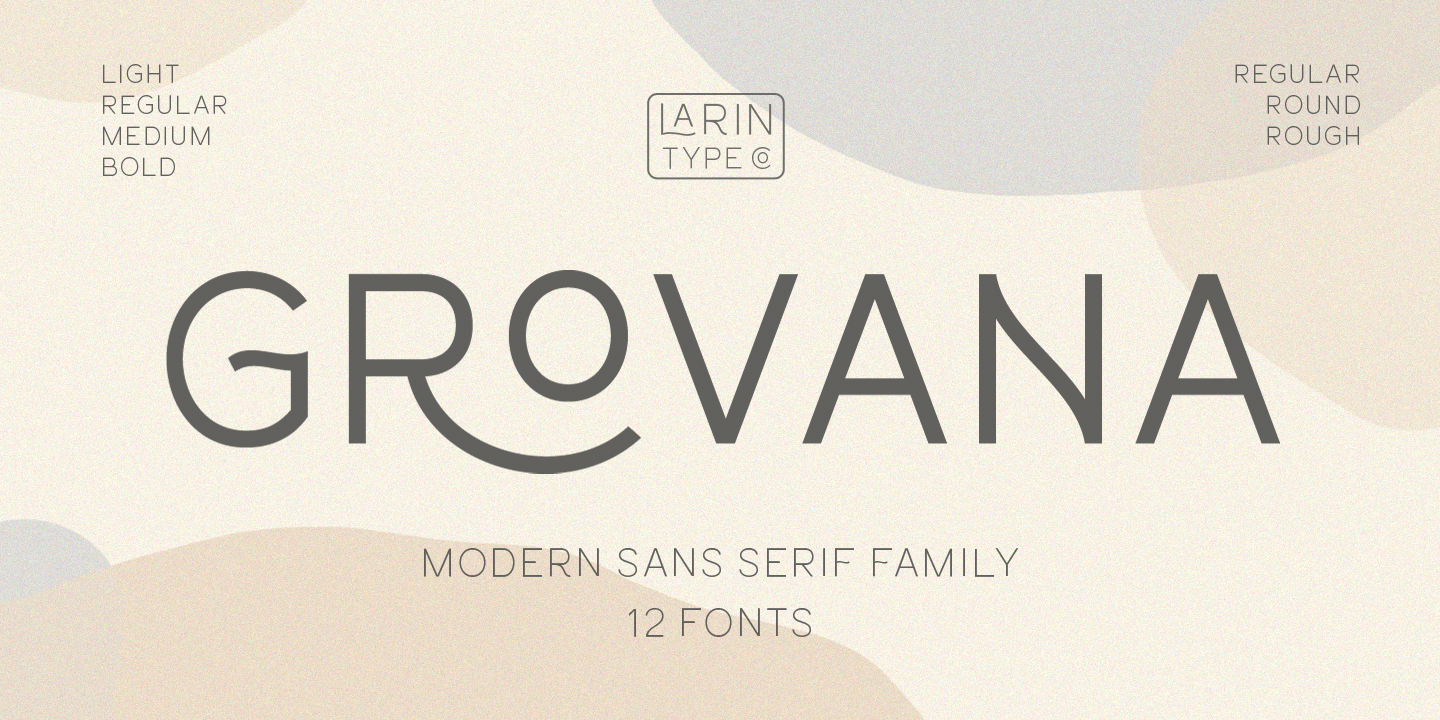
Grovana Font is perfect for organic food branding, nature conservation campaigns, eco-friendly product packaging, botanical garden signage, sustainable lifestyle blogs, environmental awareness materials, natural skincare labels, farm-to-table restaurant menus, wellness retreat marketing, and green technology companies that emphasize natural harmony and environmental consciousness.
What makes Grovana Font exciting is its organic ability to capture the essence of natural growth and botanical beauty through its flowing letterforms that seem to have grown from the earth itself. This harmonious typeface embodies the spirit of living ecosystems with its gentle curves and natural rhythm that speaks of forest groves, meadow flowers, and the peaceful coexistence of all living things. The font's earthy character creates an immediate connection to nature and sustainability.
The Grovana Font family includes light, regular, and bold weights designed to maintain its natural authenticity across various environmental applications. Special botanical symbols, leaf ornaments, and nature-inspired decorative elements complement the main typeface, while organic spacing ensures optimal readability for both intimate nature guides and large environmental campaign displays.
Grovana Font Free Download offers environmentally conscious designers access to typography that celebrates the beauty of the natural world. Its organically crafted letterforms maintain excellent legibility while projecting an image of environmental stewardship and natural harmony. The font's versatile nature works beautifully for both grassroots environmental organizations and major eco-friendly corporations.
Cultivate natural beauty with Grovana Font and create designs that honor our planet's precious ecosystems while inspiring audiences to embrace sustainable living and environmental responsibility.